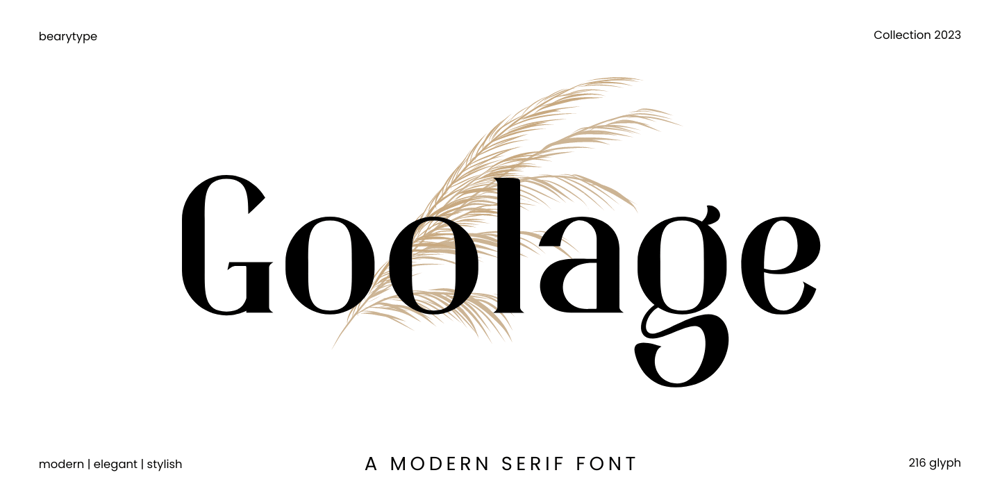
Goolage
Goolage font
Goolage Font Family was designed by Dian Haniffan Hadi and published by Beary. Goolage contains 1 styles and family package options. Introducing Goolage: A Modern Serif Font for Elegance!Goolage is our latest font creation, blending the aesthetics of modern serif with an unmatched touch of elegance. Goolage is the top choice to elevate the look of your designs with a touch of elegant modern serif. Start using Goolage in your projects and let this font bring a unique and beautiful aesthetic to your work. Get Goolage now and witness how your designs become extraordinary!